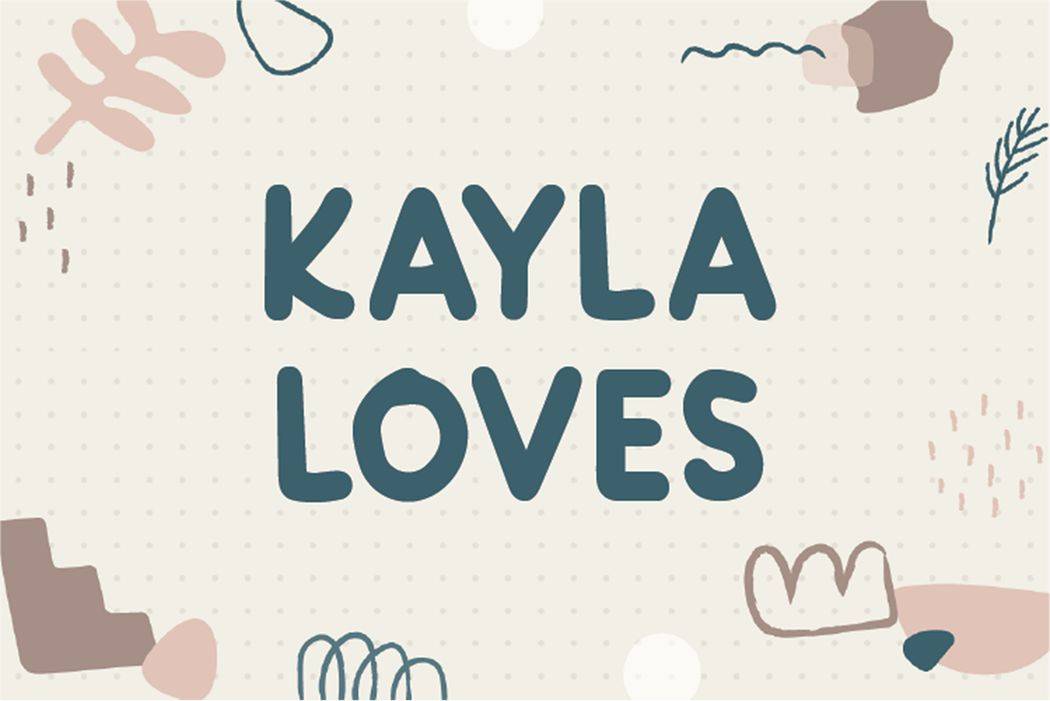
Kayla Loves Font is a bold, playful sans serif with rounded edges and a hand-drawn feel that adds warmth and friendliness. Its slightly irregular letterforms and thick strokes make it perfect for casual, fun designs like children's books, informal branding, or lively posters. This font works well for attention-grabbing headlines where a relaxed and approachable personality is desired.
Kayla Loves Font
About Kayla Loves Font
| Font family | Kayla Loves Font |
| Designer | Lady Hanna |